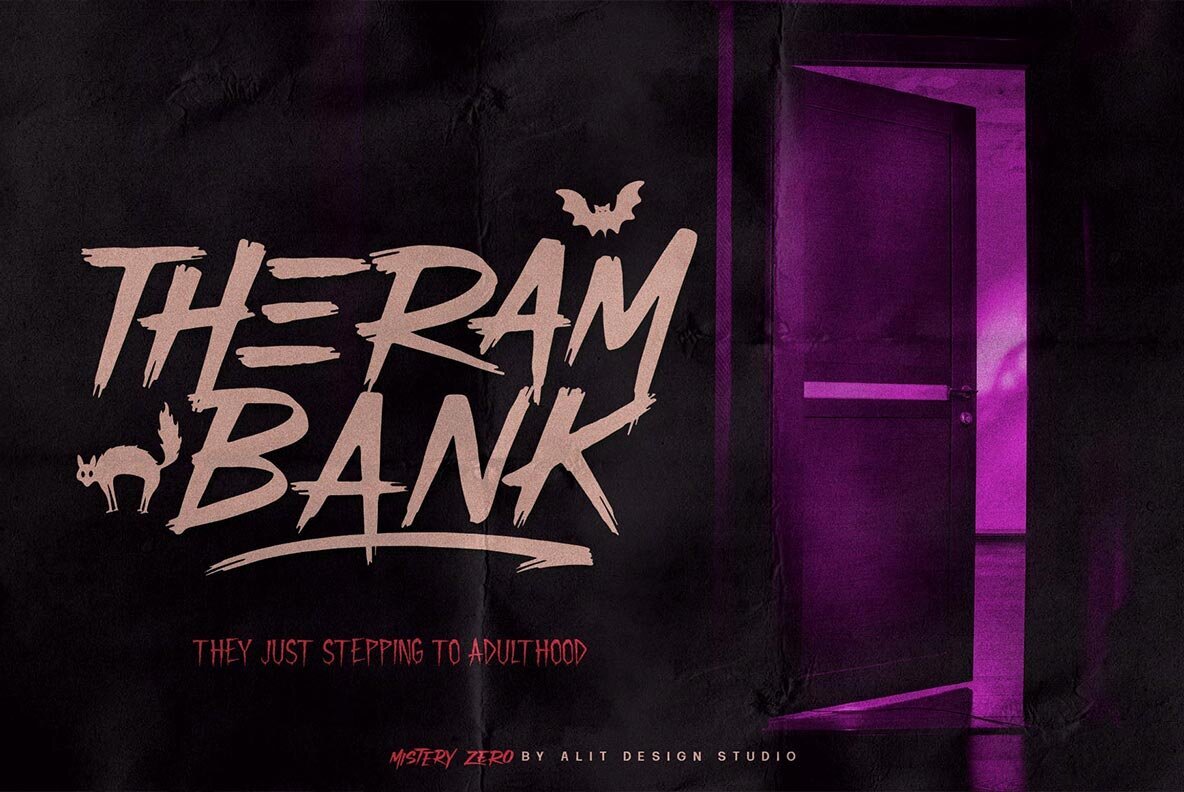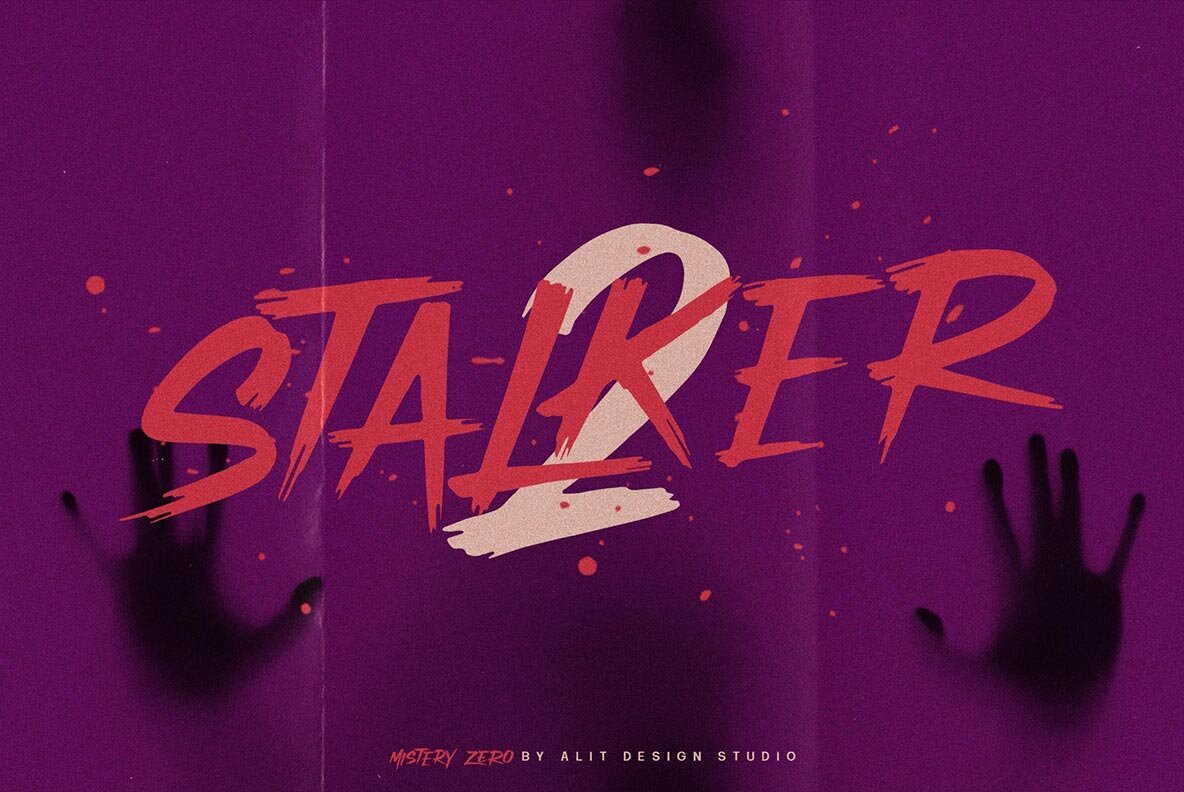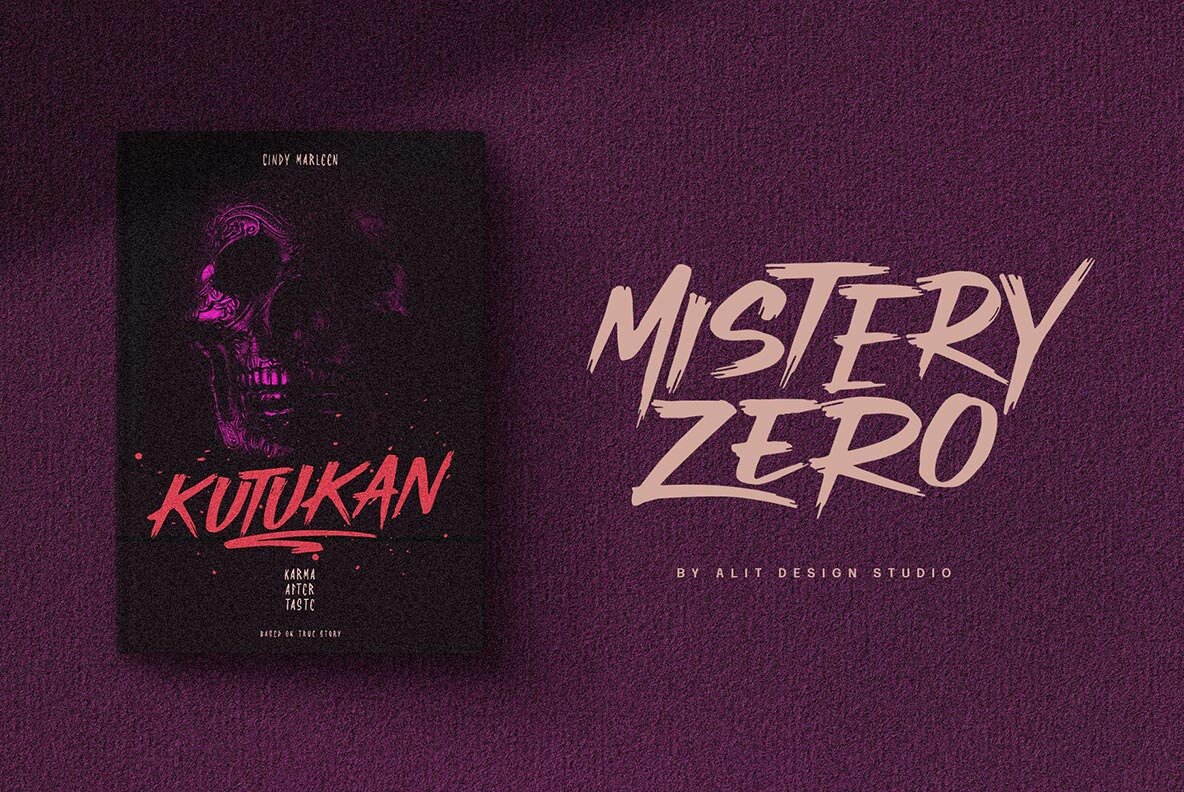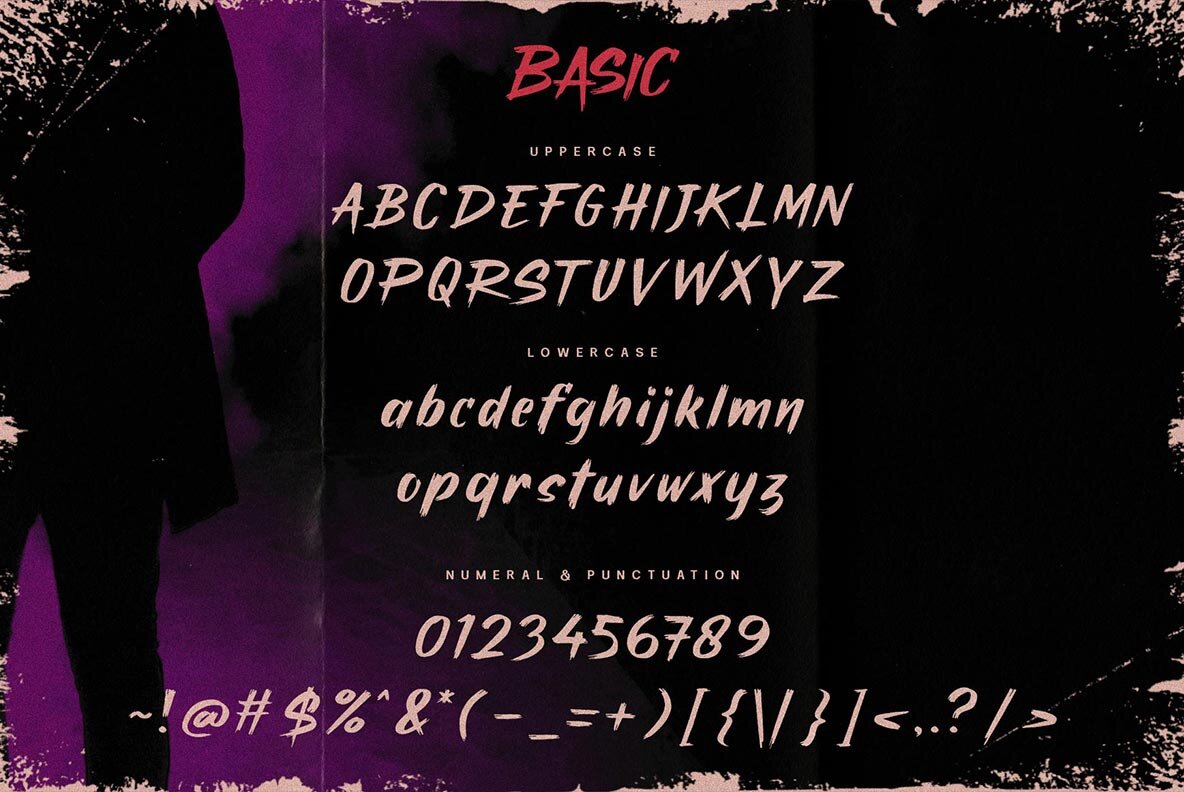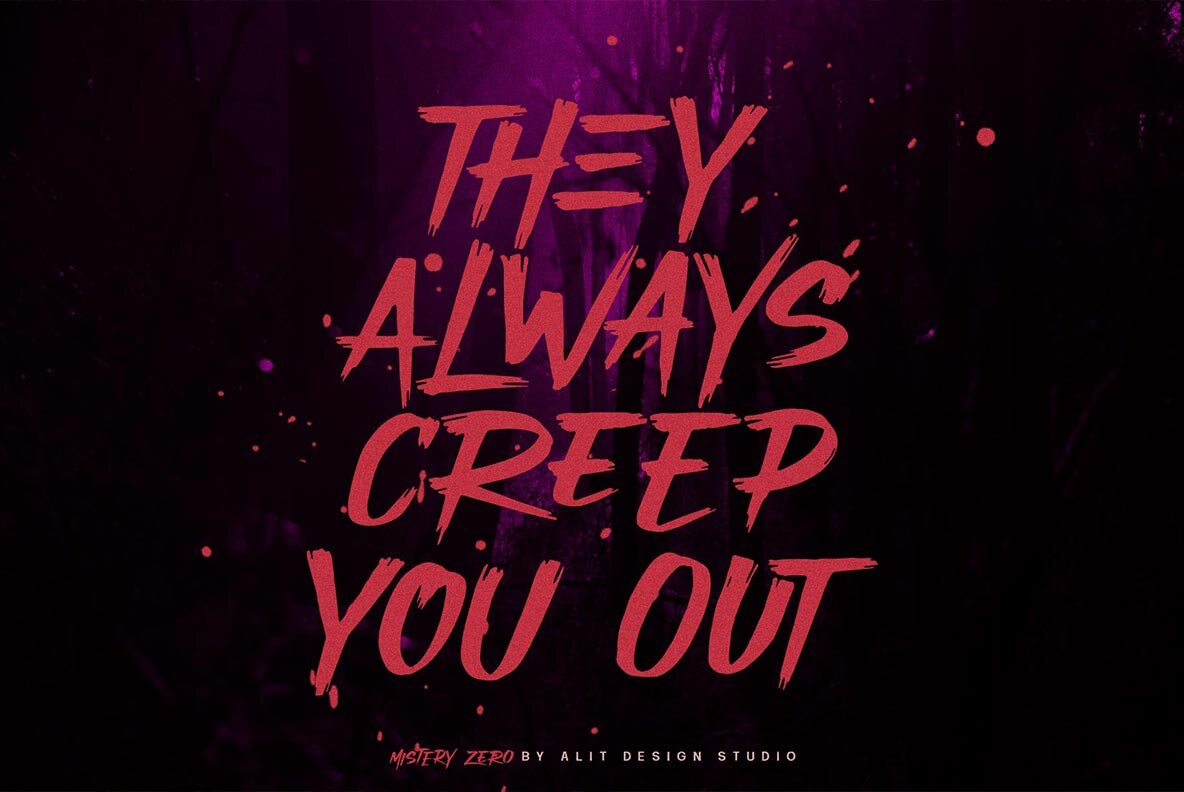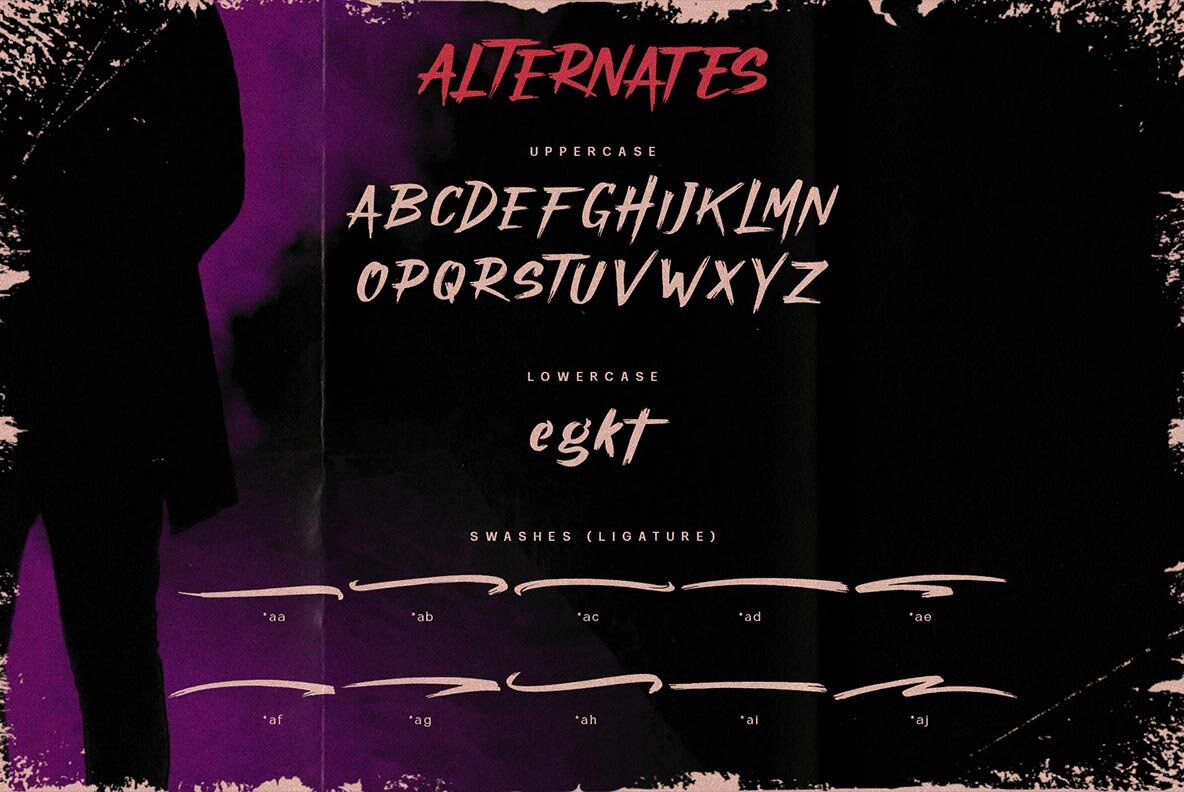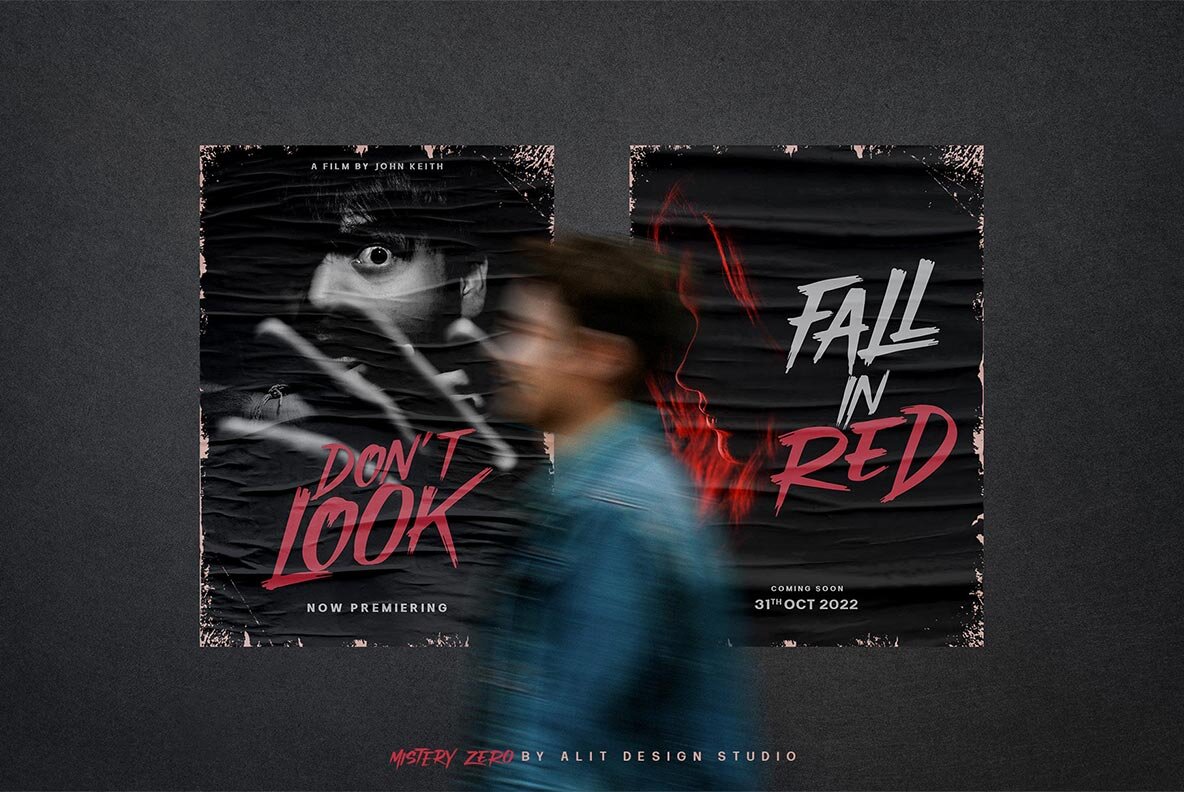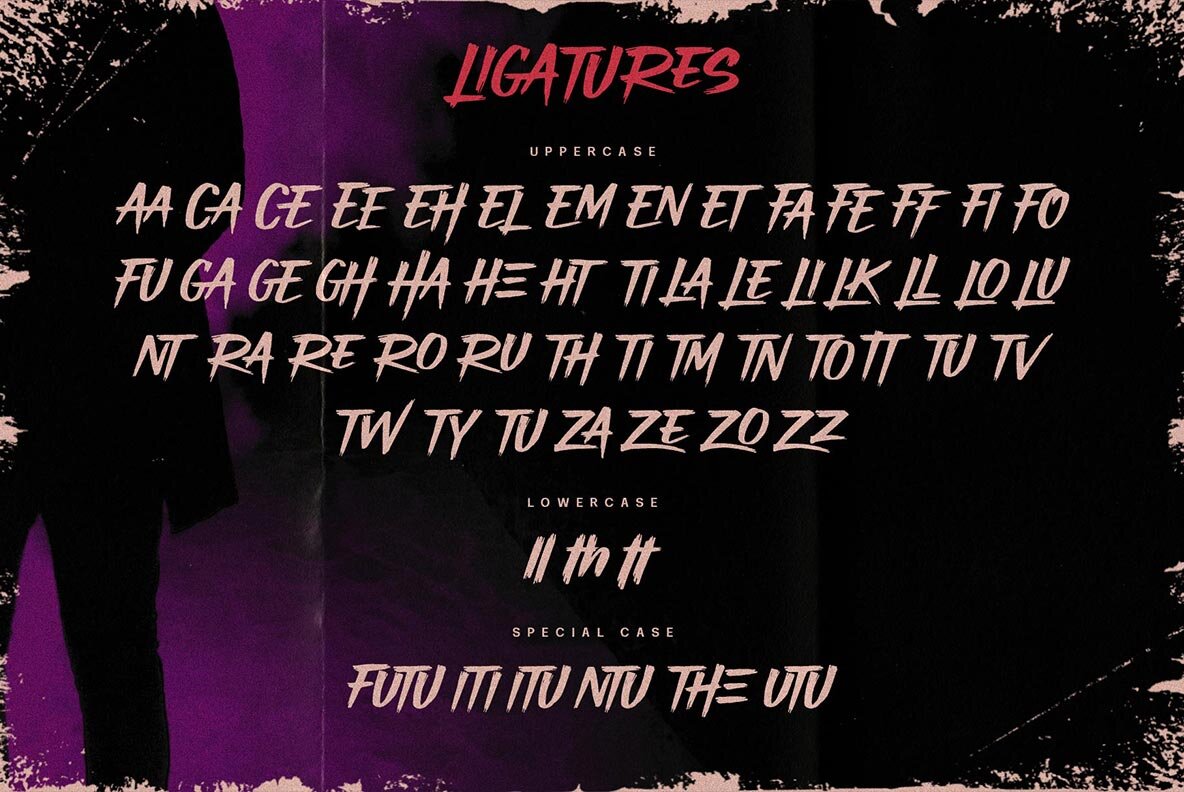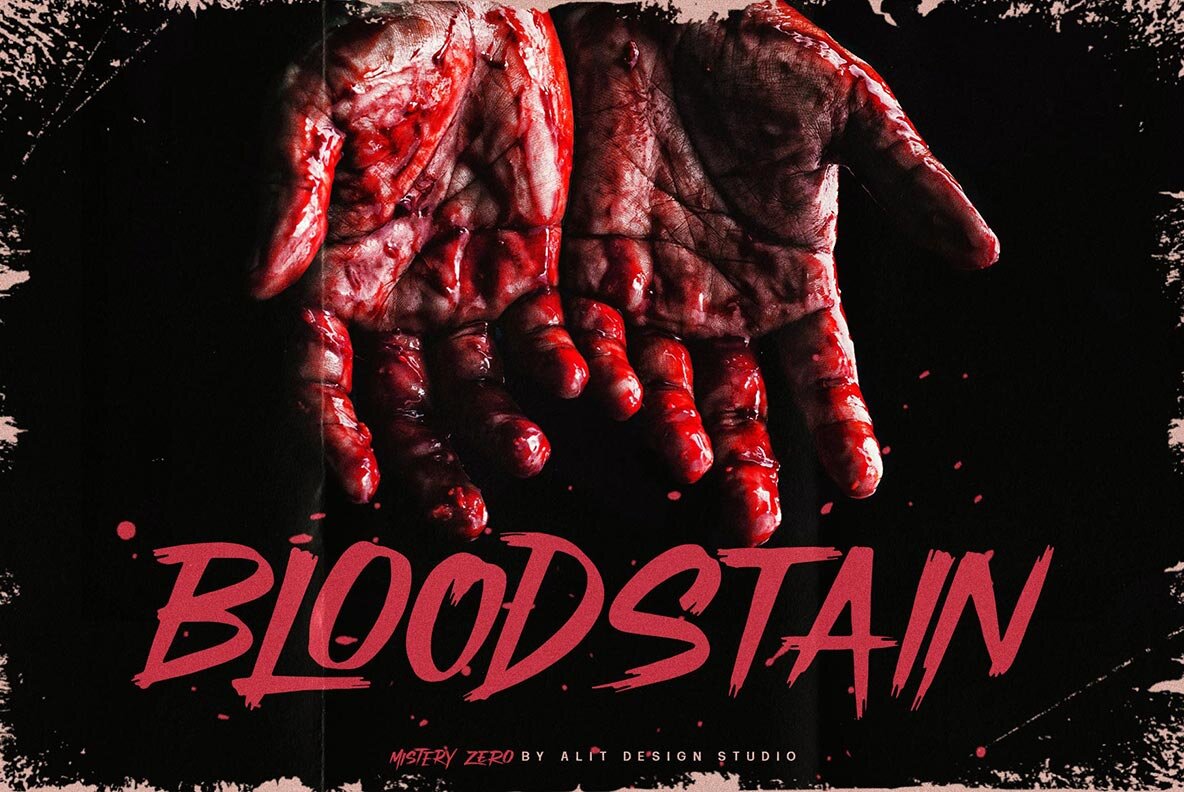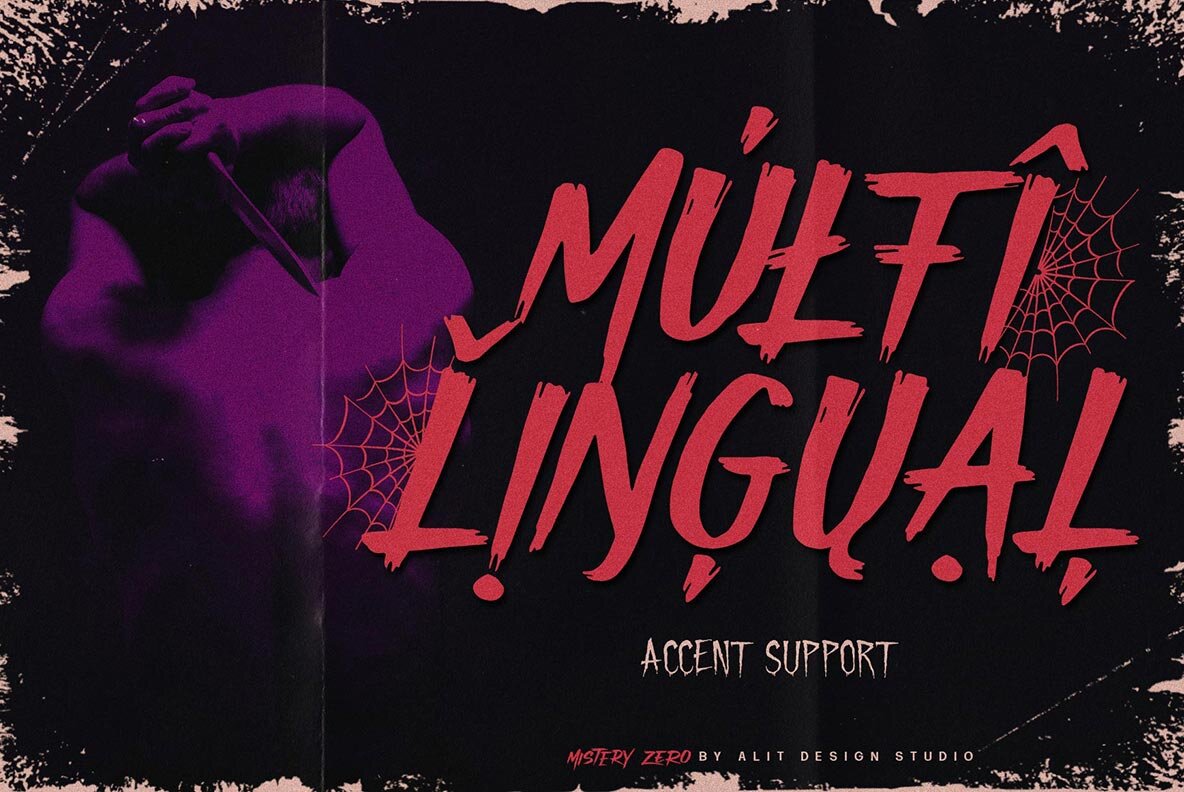
Mistery Zero Font
Embrace the eerie charm of Halloween with Mistery Zero, a font that masterfully captures the spirit of the season. Designed with a focus on haunted themes and mysterious atmospheres, this typeface is perfect for thematic projects ranging from party invitations to festive branding.Mistery Zero: A Typeface for Halloween